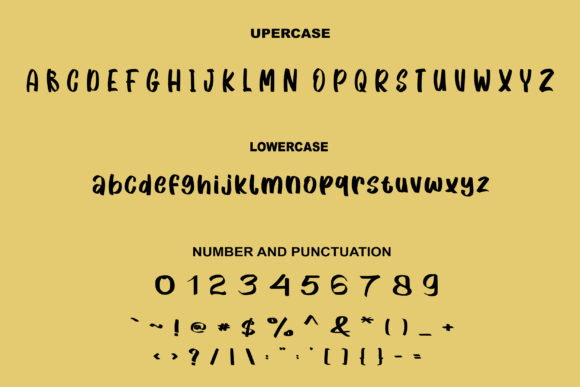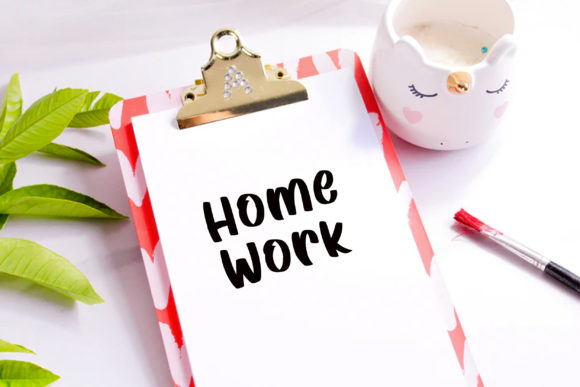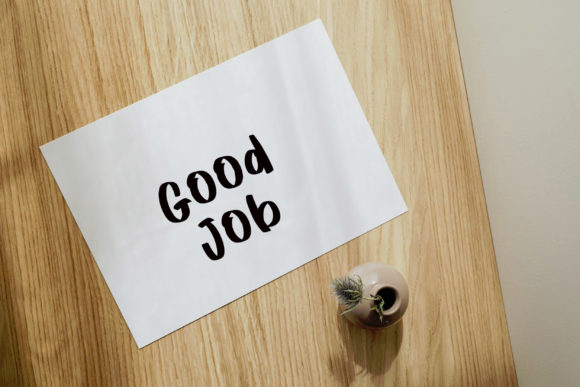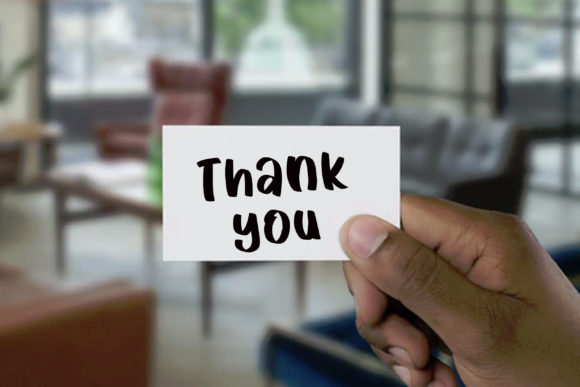
Introducing Business Font: Elevate Your Designs with a Chic and Modern Display Font
In the world of design, fonts play a crucial role in conveying the tone and personality of a brand. For designers and crafters looking to make a statement, Business Font is an excellent choice. This chic and modern display font is perfect for creating stunning designs that capture attention and leave a lasting impression.
What Makes Business Font Stand Out?
Business Font is a versatile and stylish font that is specifically designed for display purposes. Its sleek and modern aesthetic makes it ideal for a wide range of applications, from t-shirts and sportswear to logos, advertisements, and clothing. The font’s clean lines, elegant curves, and precise craftsmanship ensure that it looks great in both digital and print formats.
Key Features of Business Font
- Chic and Modern Design: Business Font boasts a fresh and contemporary look that will elevate your designs and give them a professional edge.
- Highly Versatile: Whether you’re designing for fashion, advertising, or branding, this font adapts seamlessly to different contexts and mediums.
- Excellent Legibility: The font’s clear and readable design ensures that your message is conveyed effectively, even at smaller sizes.
- Wide Range of Applications: From t-shirts and sportswear to logos, advertisements, and clothing, Business Font is the perfect choice for various design projects.
Why Choose Business Font for Your Designs?
With Business Font, you can add a touch of sophistication and style to your designs. Its modern aesthetic and precise craftsmanship make it an excellent choice for designers and crafters who want to create high-quality visuals that stand out from the crowd. Here are some compelling reasons to choose Business Font:
- Enhance Your Brand’s Visual Identity: A well-chosen font can make a significant impact on your brand’s visual identity. Business Font helps you create a cohesive and professional look that resonates with your target audience.
- Increase Engagement: With its stylish and attention-grabbing design, Business Font can help you capture the attention of your audience and increase engagement with your brand.
- Streamline Your Design Process: Business Font is easy to use and works seamlessly across different design platforms, allowing you to focus on the creative aspects of your project.
Tips for Using Business Font Effectively
To get the most out of Business Font, here are some tips to keep in mind:
- Pair it with Complementary Fonts: Combine Business Font with other fonts that complement its style and aesthetic to create a unique and visually appealing design.
- Experiment with Colors and Textures: Don’t be afraid to try out different colors and textures to add depth and interest to your design.
- Use it Consistently: Consistency is key when it comes to branding. Use Business Font across all your design materials to create a cohesive look and feel.
Business Font is a versatile and stylish display font that can elevate your designs and give them a professional edge. With its chic and modern aesthetic, excellent legibility, and wide range of applications, it’s an excellent choice for designers and crafters looking to create stunning visuals. Whether you’re designing for fashion, advertising, or branding, Business Font is the perfect choice for your next project.